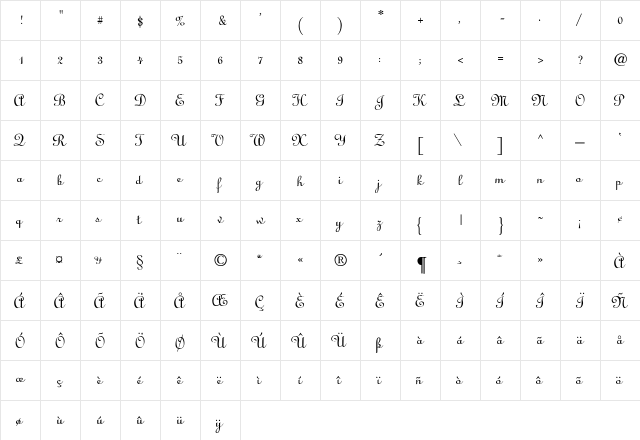
Finlandia Regular
Design Context for Finlandia Typeface
Finlandia is a composed and adaptable typeface that performs quietly and consistently across a wide range of design contexts.